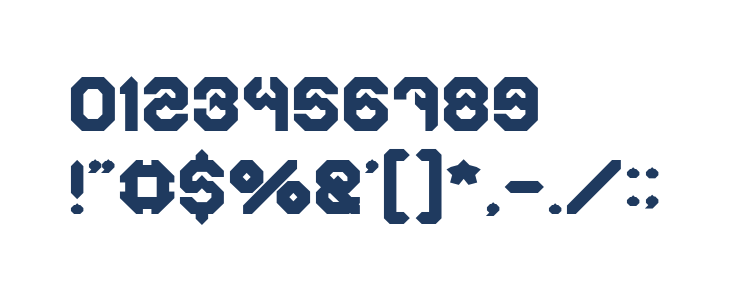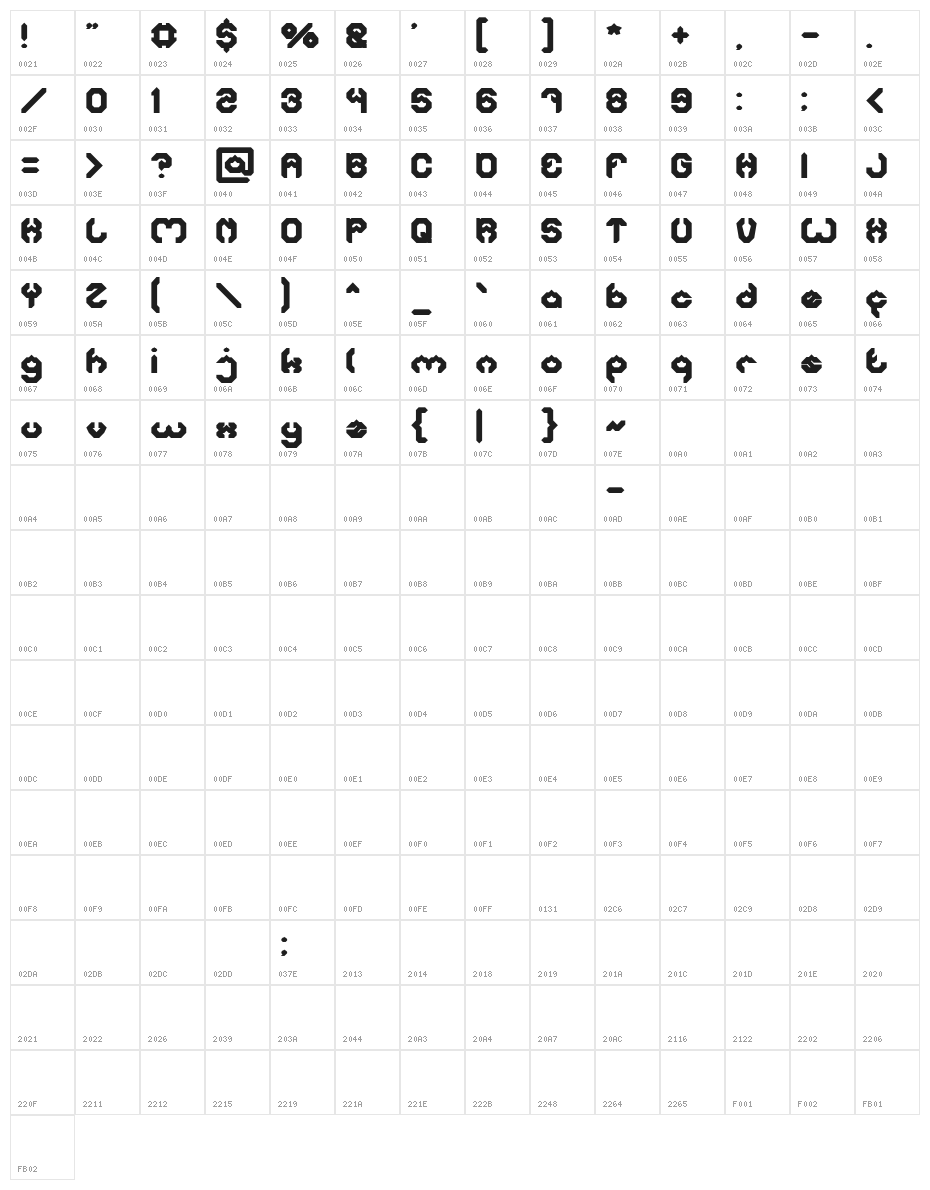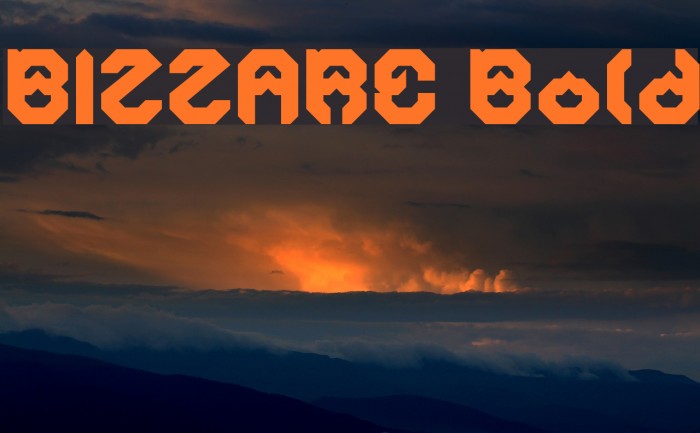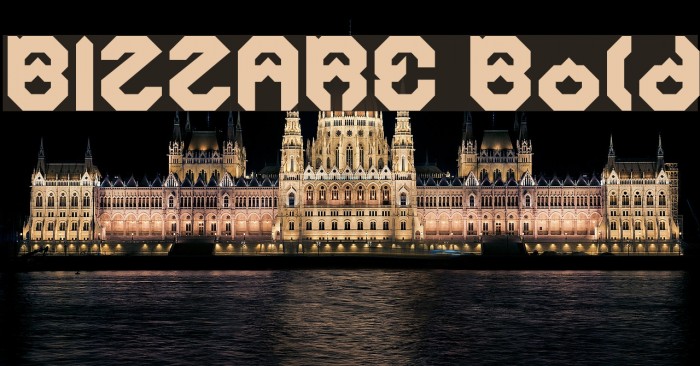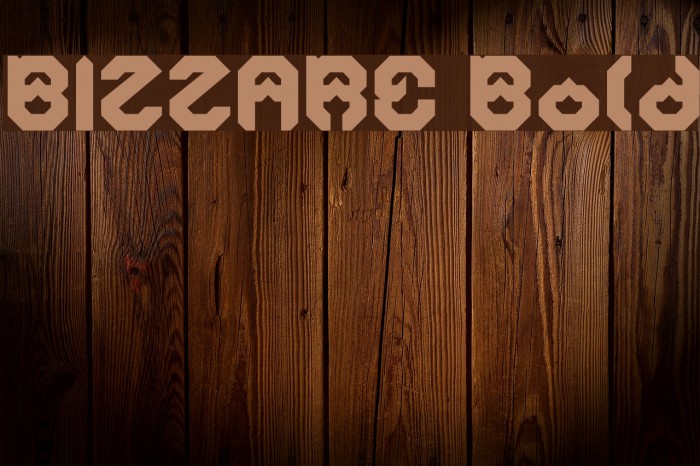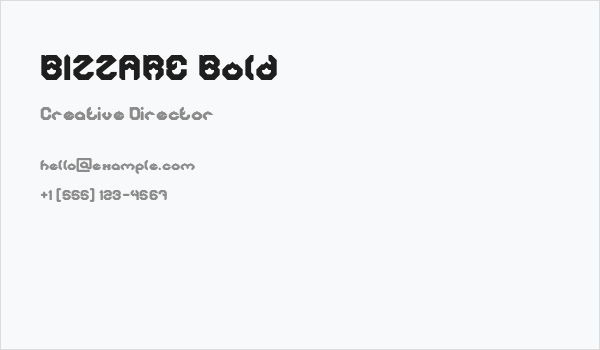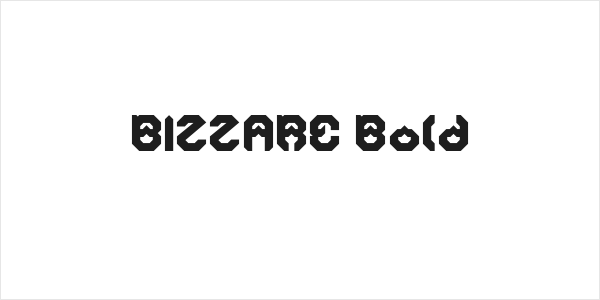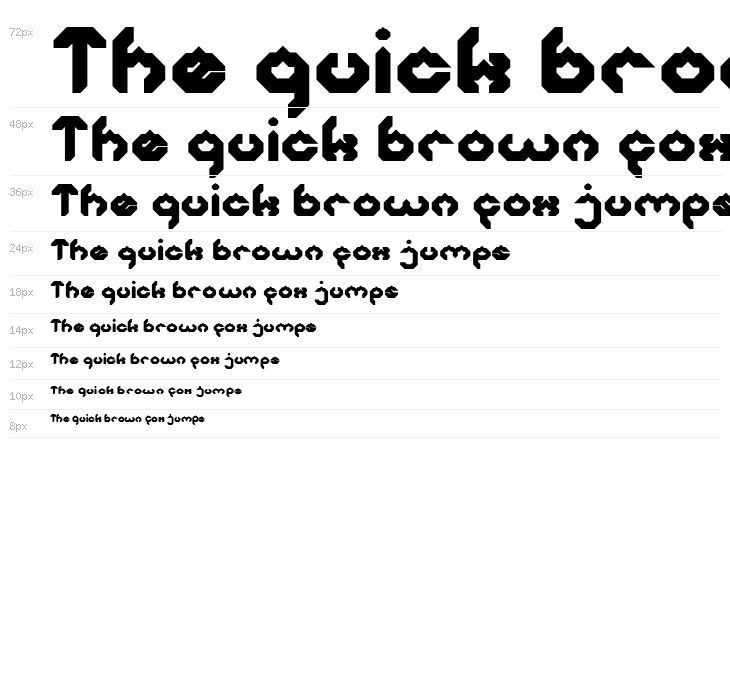
BIZZARE Bold Font
BIZZARE Bold Description
This font features a bold, geometric style with a unique, angular design that gives it a futuristic and edgy appearance. The characters are constructed with sharp, straight lines and corners, creating a sense of structure and modernity. The uppercase and lowercase letters maintain a consistent style, with the lowercase being slightly more compact. Numbers and special characters follow the same design principles, ensuring uniformity across all glyphs. The font's boldness and distinctiveness make it stand out, making it suitable for eye-catching designs.
| Proposed Projects | Ideal for sci-fi themed projects, modern branding, posters, and digital artwork. |